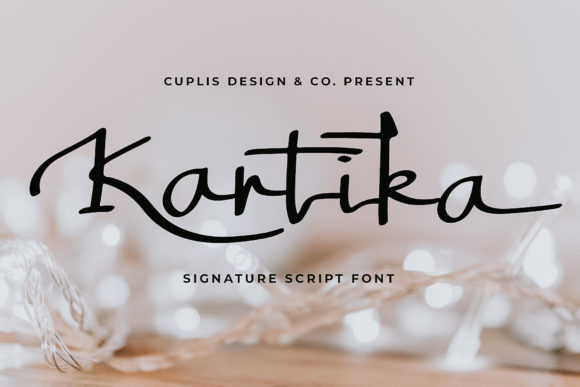
Behold, the Kartika Font, a script font family that oozes charm and sophistication. Designed by the talented Dustfinger, this font is a flawless choice for wedding programs, invitations, and any design seeking a touch of elegance and beauty.
Indulge in the font's remarkable versatility. Its natural and distinctive style seamlessly adapts to various design aesthetics, effortlessly enhancing your creations. Whether you're crafting wedding invitations, greeting cards, or social media posts, Kartika Font is your trusted companion, adding a dash of enchantment to every project.
Effortlessly express your heartfelt emotions with Kartika Font. Its graceful swashes and delicate ligatures intertwine harmoniously, capturing the essence of love and joy. Allow your wedding vows to dance across the page, carried by the whimsical strokes of this enchanting font. Each letter, meticulously crafted, conveys a tale of romance and eternal devotion.
Immerse yourself in the boundless possibilities of Kartika Font. Its PUA encoding grants you effortless access to a world of glyphs and swashes, empowering you to unleash your creativity and design magic. With a few clicks, you can adorn your projects with exquisite ornaments, flourishes, and accents, transforming ordinary text into captivating works of art.
With Kartika Font, your designs will blossom into breathtaking masterpieces. Its elegant curves and refined details evoke a sense of timeless beauty, leaving a lasting impression on your audience. Prepare to be captivated as your designs take flight, adorned with the allure and grace of Kartika Font.